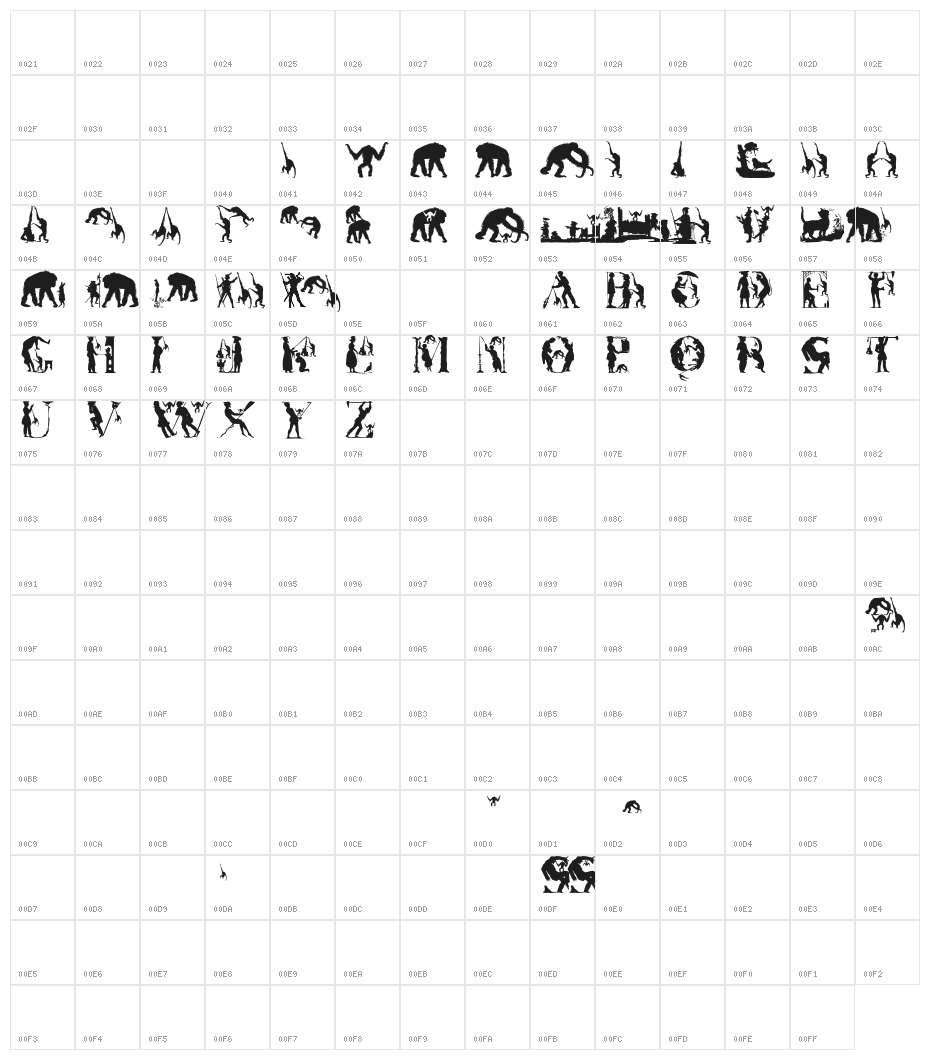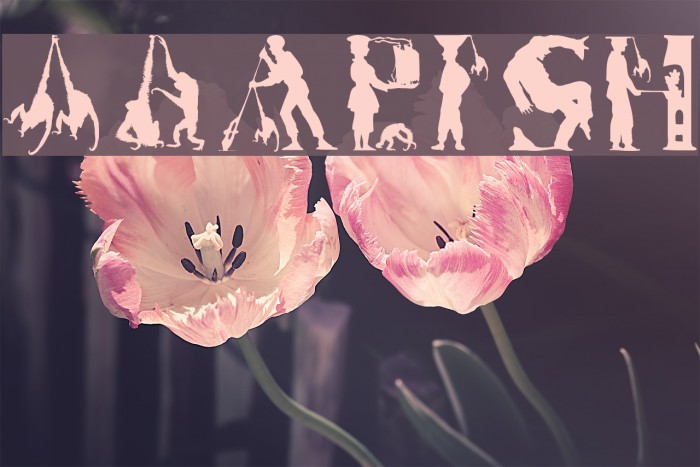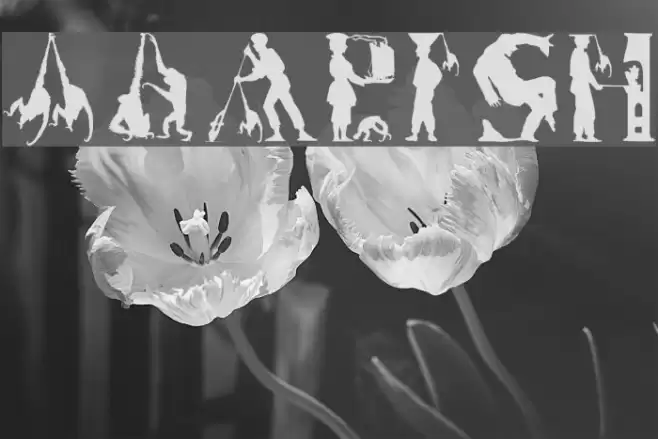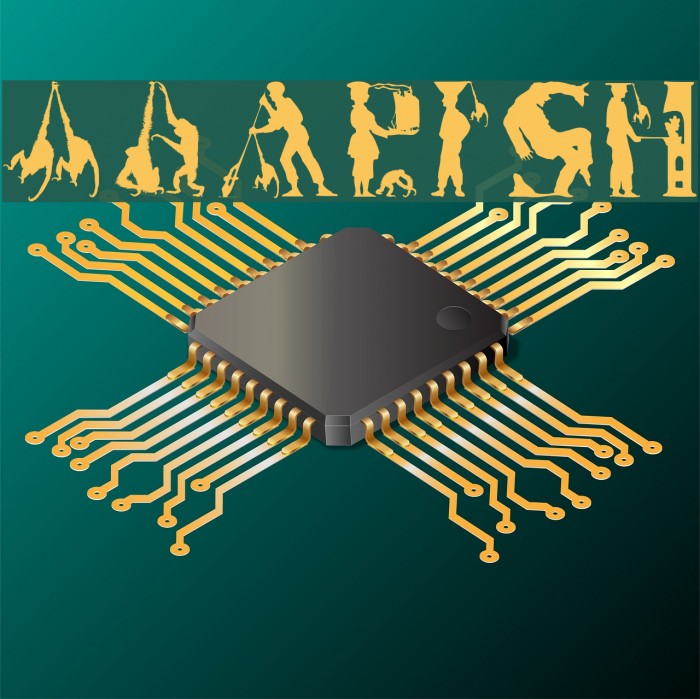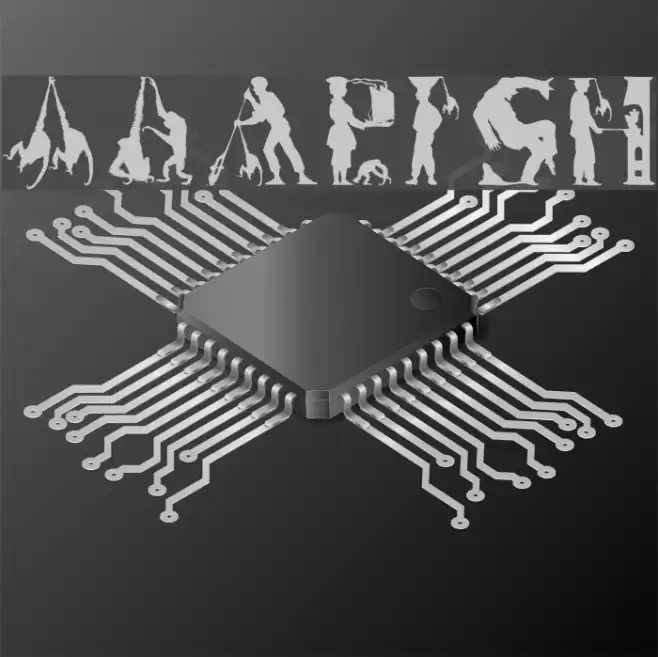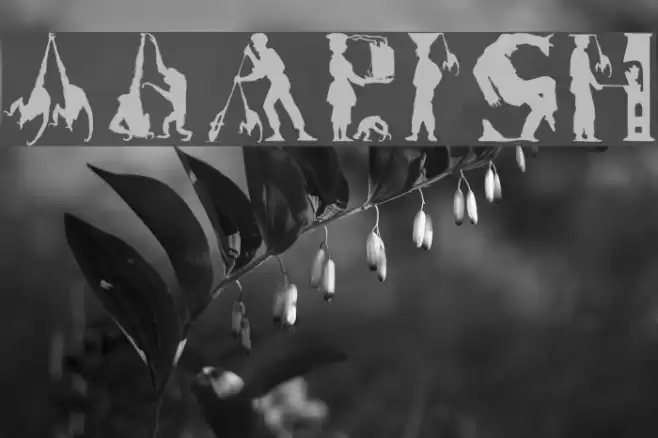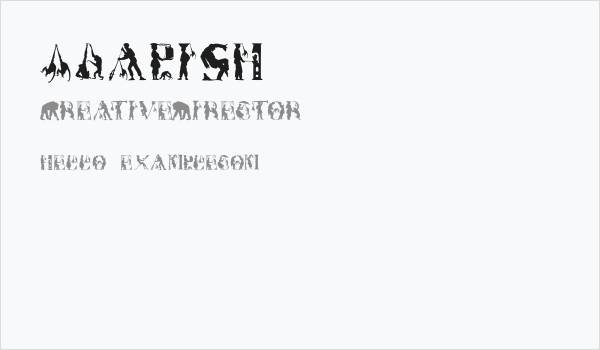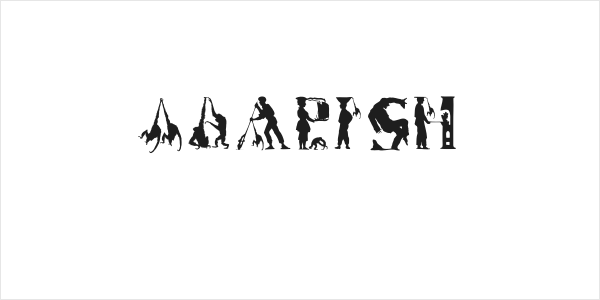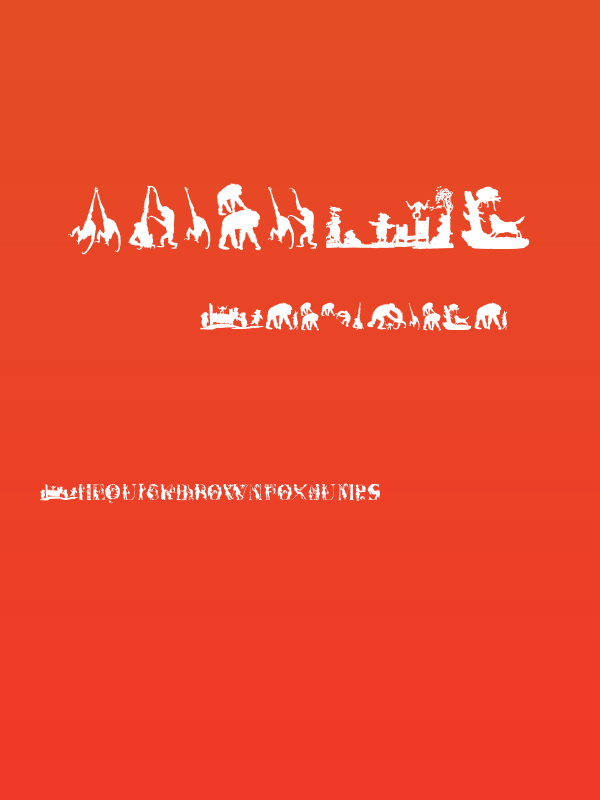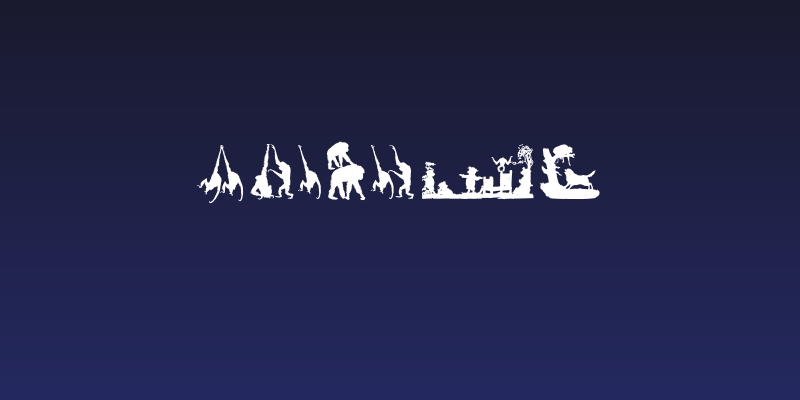
MKapish Font
MKapish Description
This font is a unique and creative design that incorporates silhouettes of monkeys and apes into the structure of each letter. The uppercase letters are formed with various poses and activities of these animals, creating a playful and dynamic appearance. The font is highly decorative, making it ideal for projects that require a fun and engaging visual element. The intricate details of the animal shapes add a layer of complexity and interest, making it stand out in any design. This font is not suitable for body text due to its decorative nature and the complexity of the characters, but it excels in capturing attention in headlines or thematic designs.
| Overall Style | Playful and Creative |
| Use Case | Headlines, Logos, Themed Designs |
| Proposed Projects | Ideal for children's books, zoo promotional materials, themed party invitations, and playful branding projects. |